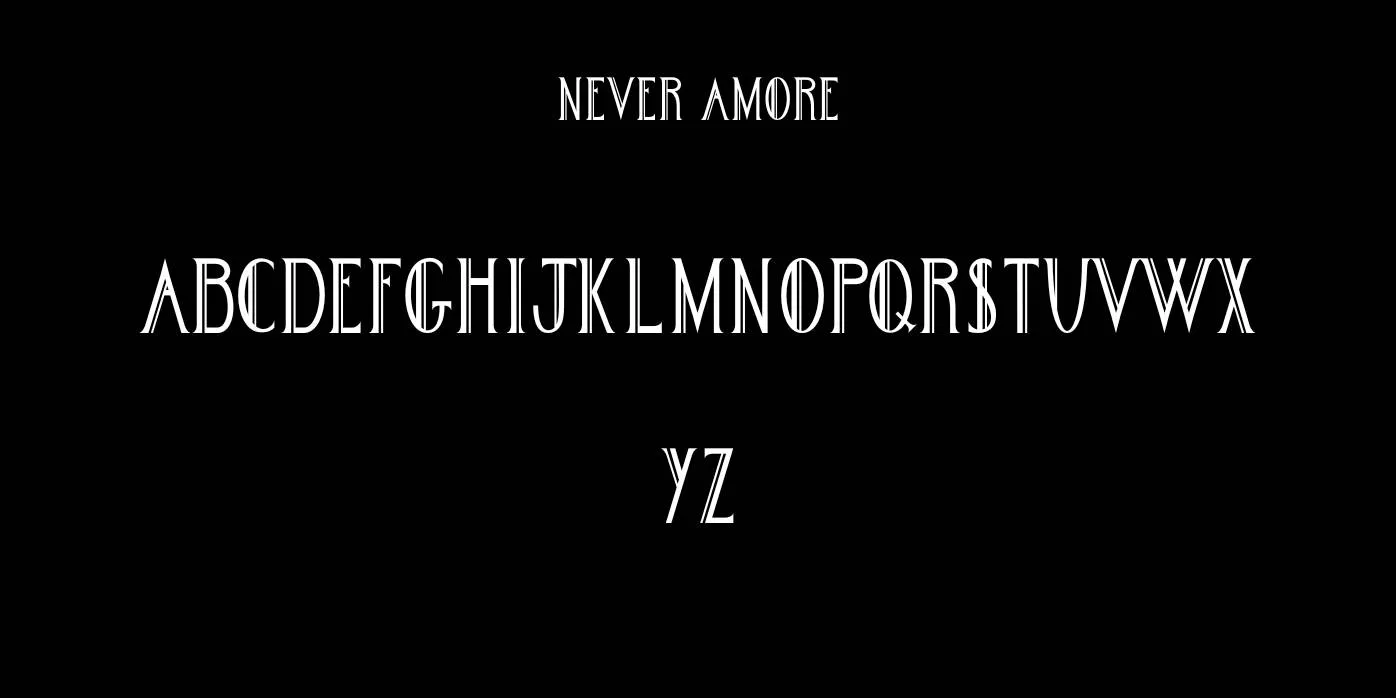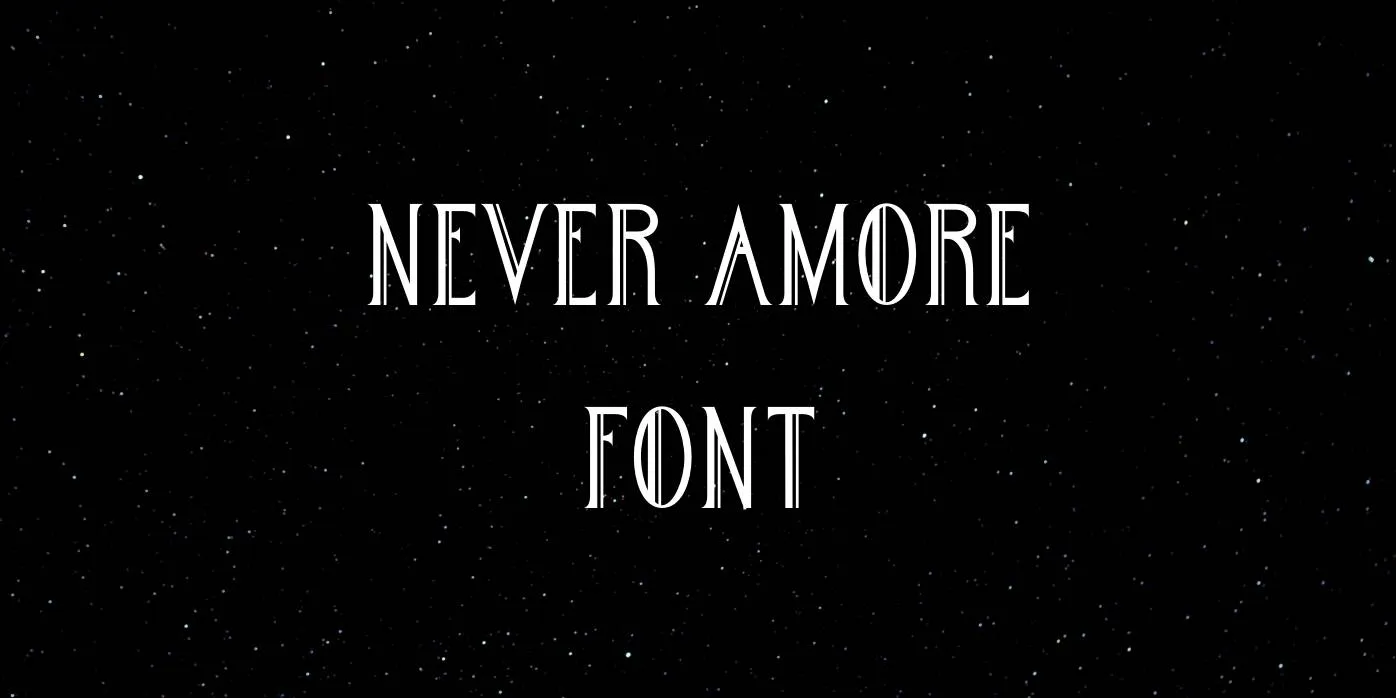
Never Amore Font
Never Amore Font is a very unique and nice font and belongs to the fancy texture family. This elegant font was designed by a famous typographic designer known as the name of Emily Wyatt. This awesome typeface contains so many characters, 63 glyphs, and 1000 units per Em. For making posters an attractive look it is also the best font for use.
It is good for both types of projects digital and print media. An online generator tool supports this font to change simple text into a stylish look without downloading the font. The weight of the font is Semi-Light and its width is condensed. Its pattern nature is regular.
It has characters, symbols, capital letters, special characters, and punctuation. Its Bold and all-caps look is very much suitable for making headlines. The Latin alphabet also includes a few additional characters.  Its different strokes with thin x-height characters make it look different and unique.
Who created Never Amore Font? This is a very nice font and it was designed by Emily Wyatt. You can use this font to make so many projects